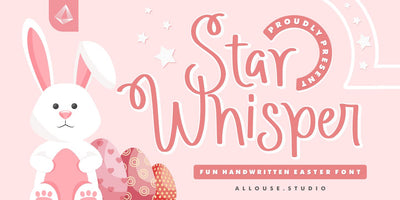
Star Whisper - Easter Font
Proudly Presenting, Star Whisper a Fun Handwritten Easter Font that will bring joy to your Easter Season.
Star Whisper is perfect for any tittles, logo, product packaging, branding project, megazine, social media, wedding, or just used to express words above the background.